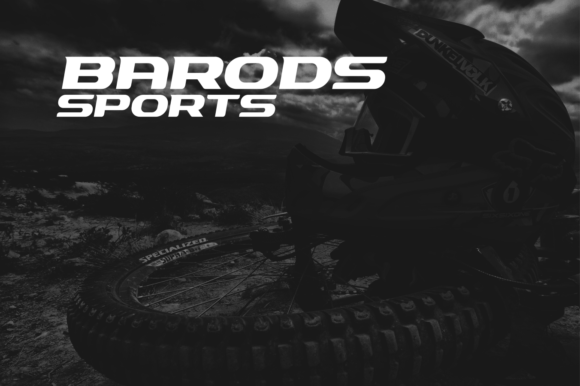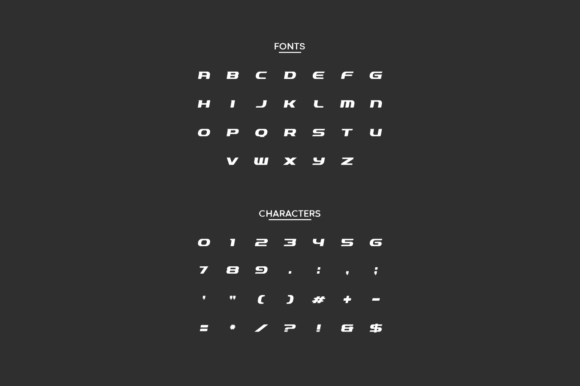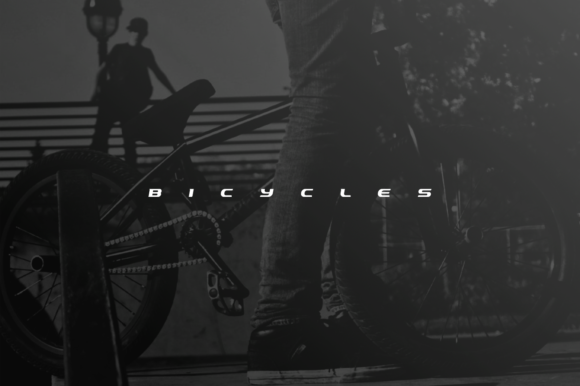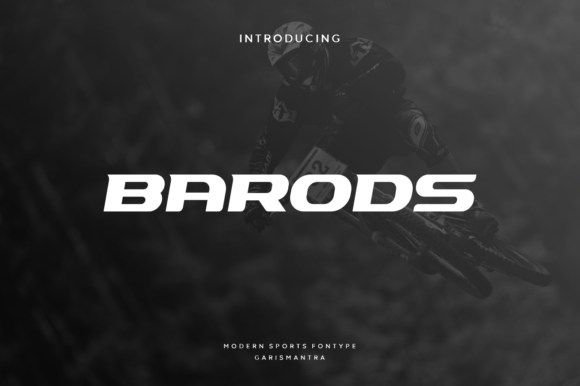
Get Ready to Unleash Your Creativity with Barods Font
Have you ever found yourself stuck in front of a blank canvas, struggling to bring your vision to life? It’s a feeling we’ve all been there, right? But what if you had the perfect tool to break through that creative block and take your designs to the next level?
Enter the Barods Font, a modern display font designed to add a touch of speed, power, and sports-inspired style to your projects. With its fun and cool aesthetic, the possibilities are endless. Whether you’re working on a campaign for a high-performance sports brand or a futuristic tech startup, Barods Font is the perfect companion to help you unleash your creativity and push the boundaries of your designs.
Barods Font Review
I recently had the chance to work with the Barods Font, and I have to say it’s a mixed bag. ✨ On the one hand, the font has a unique, modern look that I think would be perfect for any designer looking to add some edge to their project.
The font’s character set is quite extensive, making it suitable for a wide range of projects, from logos to body text. The font also supports a variety of languages, which is always a bonus. ✨ Additionally, the font’s styling options allow for some great flexibility when it comes to customizing the look and feel of your text.
While the Barods Font has its strengths, there are a few areas where it falls short. ⚠️ One of the main drawbacks is the font’s legibility at smaller font sizes. The font can become difficult to read at sizes below 12 points, which can be a problem if you’re working on a project that requires a lot of text.
Overall, I think the Barods Font is a solid choice for designers who want a modern, unique font. However, it’s not without its limitations, and you may need to do some extra work to get the most out of it. With a little bit of tweaking and customization, I think this font has the potential to be a real showstopper.
Barods Font is ideal for creating elegant and sophisticated designs. Use it for:
– Luxury branding and packaging
– High-end advertising and marketing materials
– Elegant invitations and event materials